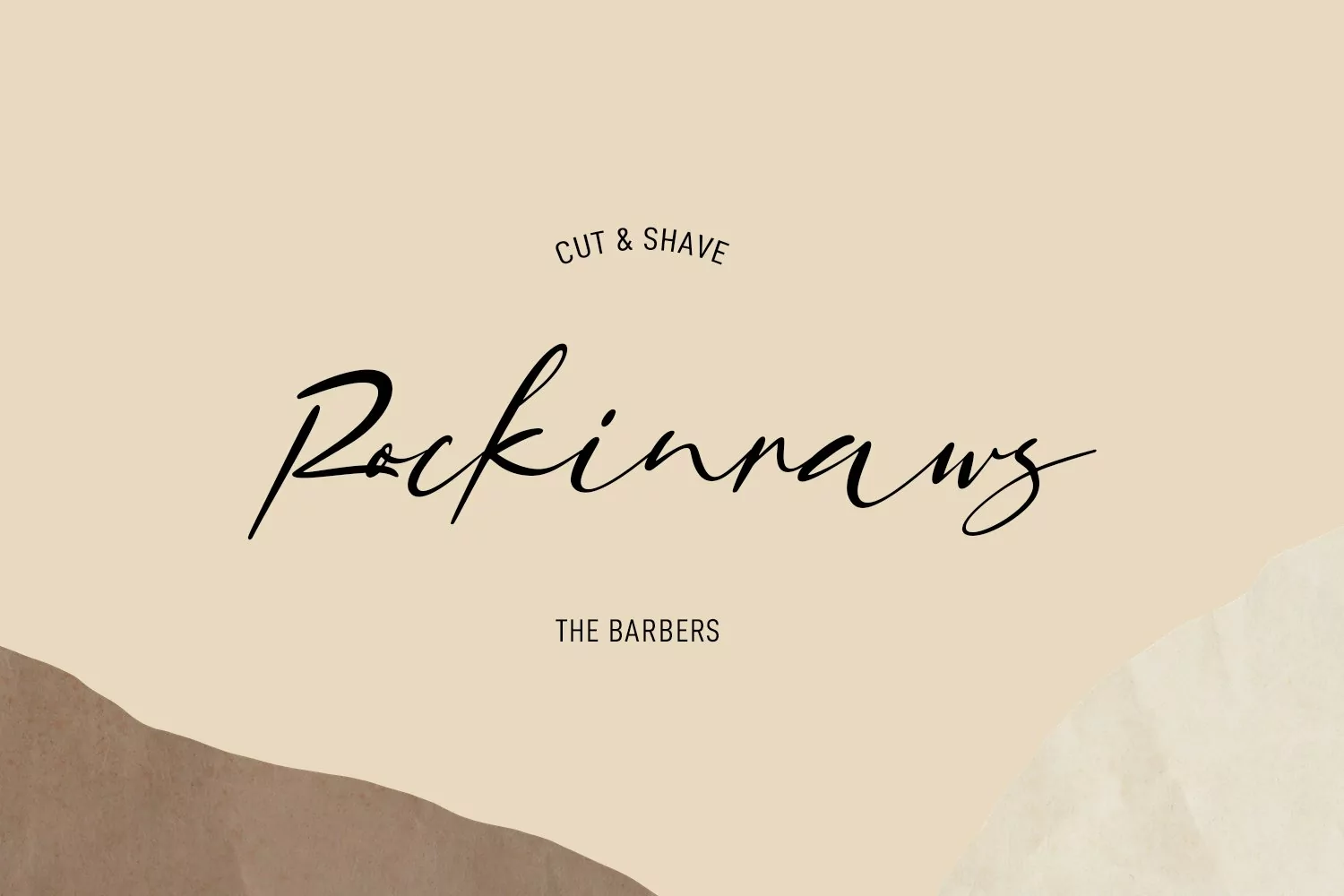
Oshirist is a Fancy unique script font. With high contrast stroke, slanted and fun character with a bit of ligatures. To give you an extra creative work. Oshirist font support multilingual more than 100+ language. This font is good for logo design, Social media, Movie Titles, Books Titles, a short text even a long text letter and good for your secondary text font with sans or serif. Make a stunning work with Oshirist font.
Oshirist